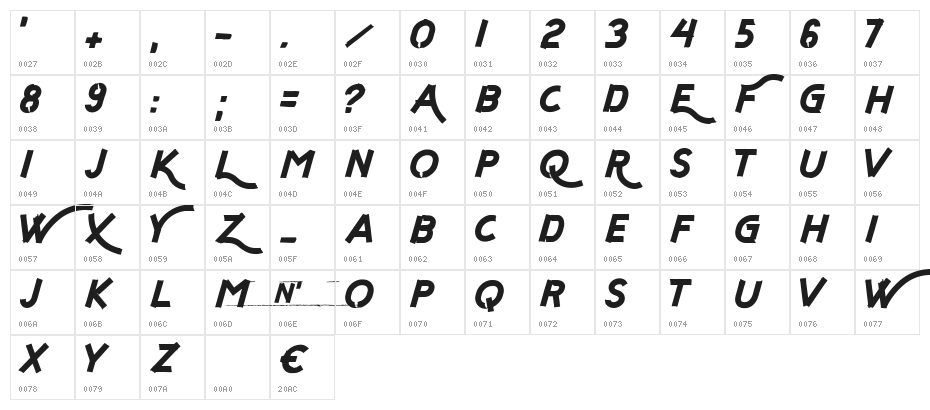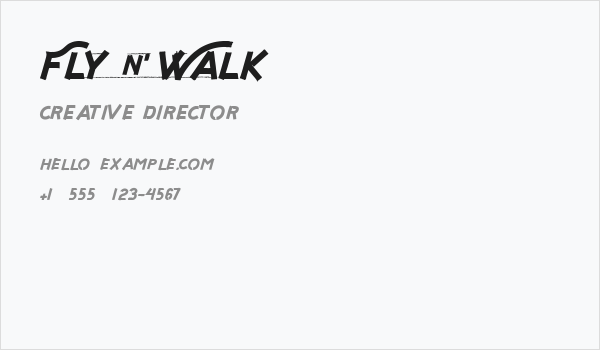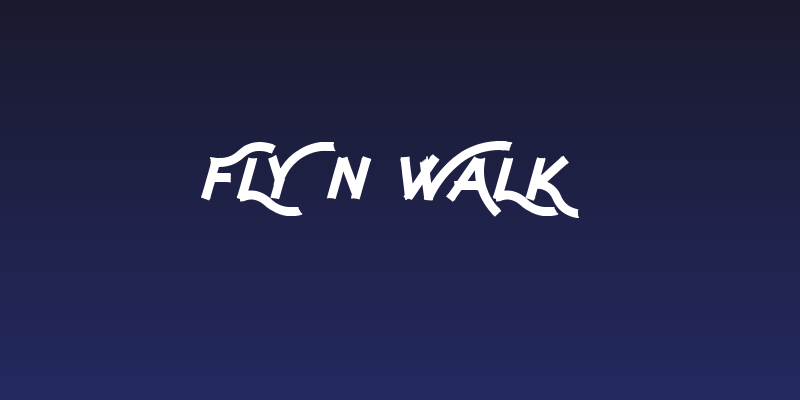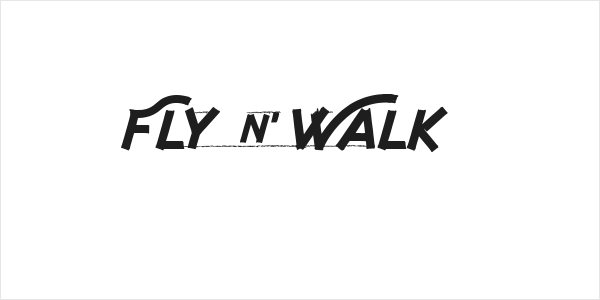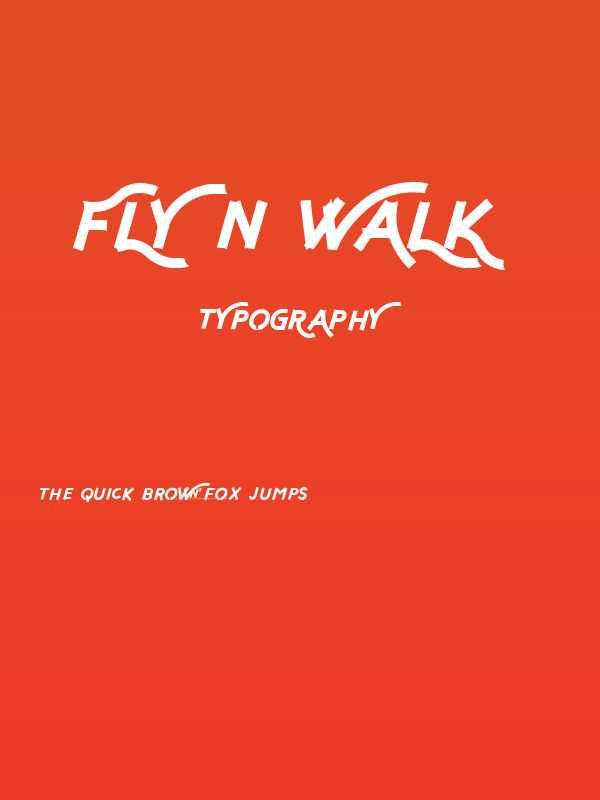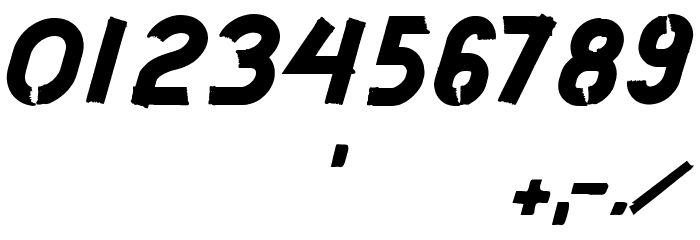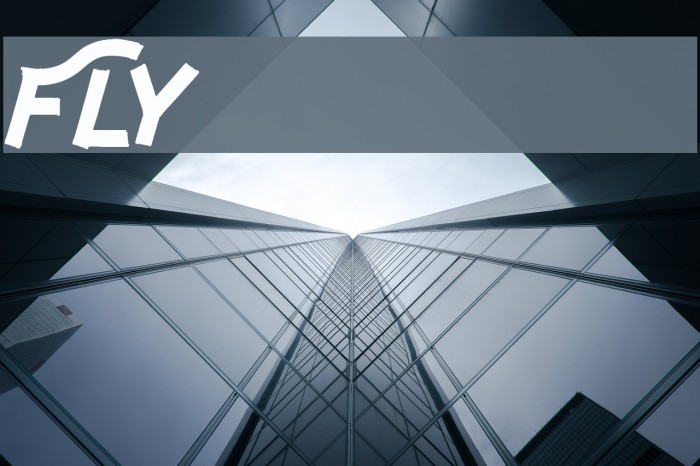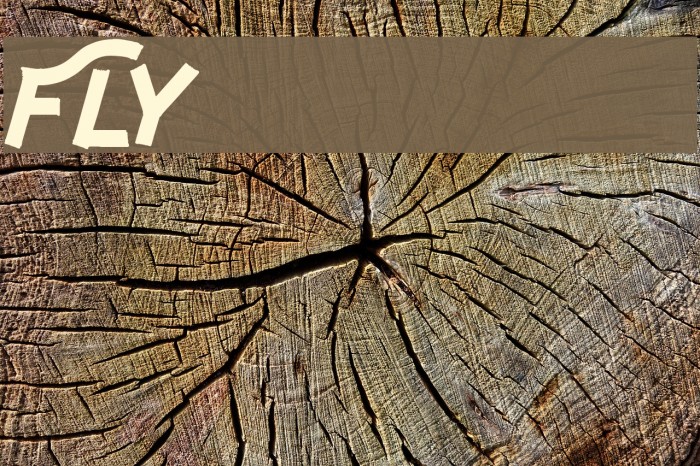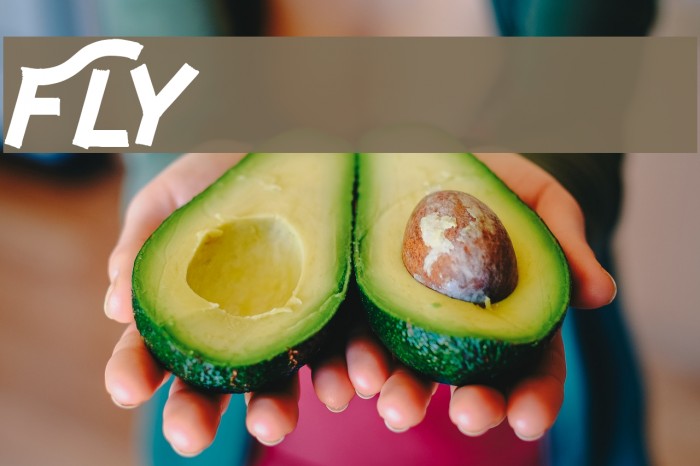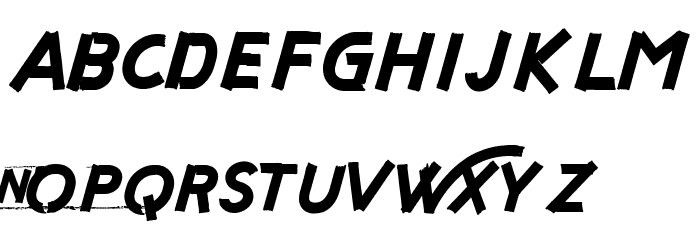
Fly n Walk Font
Fly n Walk Description
This font features a dynamic and energetic style, characterized by its bold and slightly italicized letterforms. The uppercase letters have a distinctive flair, with some characters incorporating unique swashes and curves that add a sense of motion and playfulness. The lowercase letters maintain a consistent style, complementing the uppercase with a slightly more subdued appearance. The numerals are bold and clear, ensuring readability while maintaining the font's overall aesthetic. Special characters are designed with the same attention to detail, making them cohesive with the rest of the typeface. This font's design is perfect for projects that require a lively and engaging visual impact.
| Proposed Projects | Great for branding, posters, headlines, and any project needing a lively and engaging typeface. |